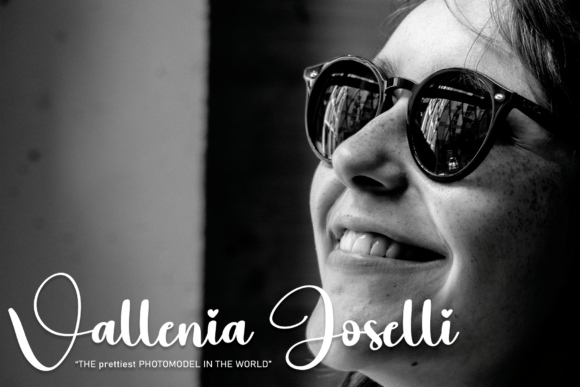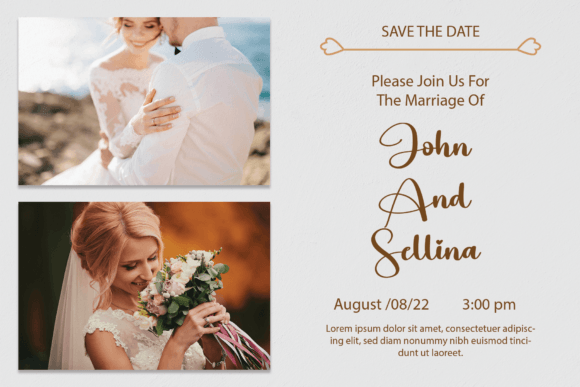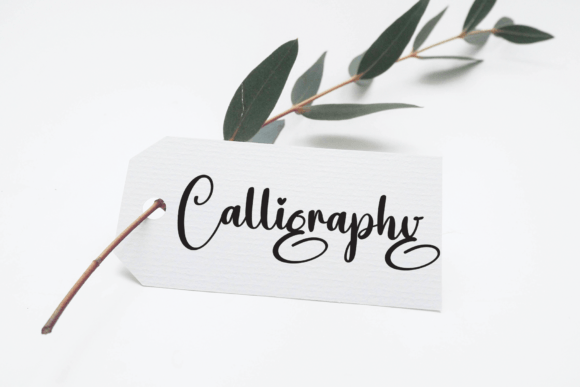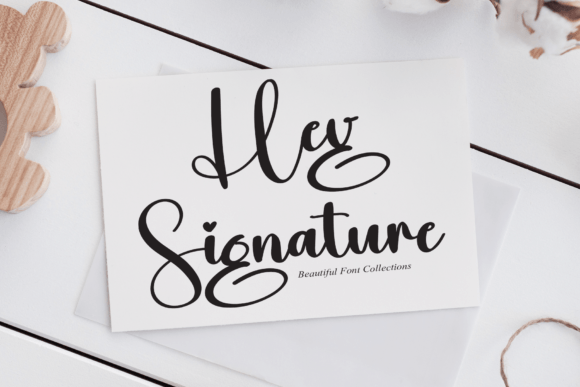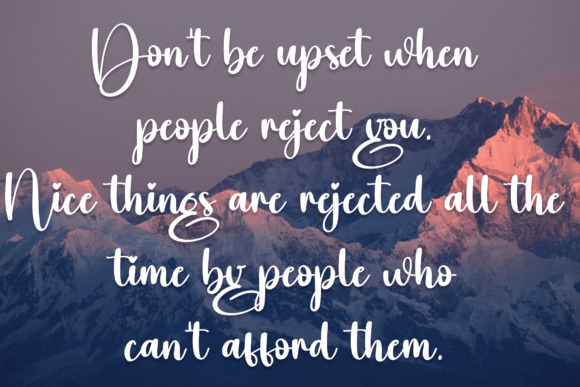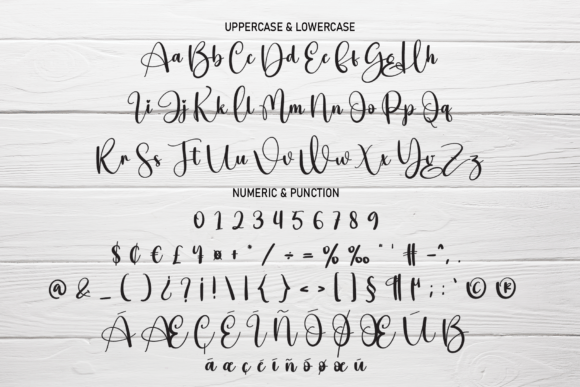
Introduction to Hey Marge Font
Have you ever been working on a creative project, pouring over design options, and then suddenly, the perfect font pops up and changes everything? That’s exactly what happened to many designers when they stumbled upon the Hey Marge Font. This bold, thick font is the ultimate game-changer for anyone looking to add a touch of fun and playfulness to their designs.
As a valuable design resource, the Hey Marge Font is perfect for branding and packaging projects where you want to grab attention and leave a lasting impression. Its unique combination of fun and creativity makes it a standout choice for designers who want to take their work to the next level.
With its high-quality design and versatility, the Hey Marge Font is a must-have for any designer looking to elevate their work and make it more engaging and interactive. And the best part? It’s available for free download, making it an accessible design solution for creatives of all levels.
Key Features of Hey Marge Font
- High-quality design resource with a unique, playful style perfect for creative projects.
- Unique characteristics include a fun, handwritten feel and a range of expressive flourishes.
- Perfect for designers looking for a high-quality, free font to add a creative touch to their projects.
Honest Review: Hey Marge Font
I recently had the chance to work with the Hey Marge Font for a creative project, and I must say it’s a great addition to any designer’s toolkit. The high-quality design and unique style make it an excellent design resource for any project.
What works well with this font is its versatility – it’s perfect for both body text and headings, and the transparent background option makes it easy to work with on any background. The free download option is also a huge plus, as it makes it accessible to designers of all levels.
- ✨ Unique and stylish design
- ✨ High-quality design perfect for body text and headings
However, I did encounter a few limitations while working with the font. The main issue was the limited character set, which made it difficult to use for projects with a lot of special characters. Additionally, the font’s size and weight options could be improved for more flexibility.
- ⚠️ Limited character set for special characters
- ⚠️ Limited size and weight options
Overall, I’m impressed with the Hey Marge Font, and I would definitely recommend it for any creative project that requires a unique and high-quality font. With a few tweaks to address the limitations, it has the potential to become a top-notch design resource.
The Hey Marge Font is commonly used for:
- Designing logos and branding materials.
- Creating social media graphics and posts.
- Developing marketing materials and brochures.